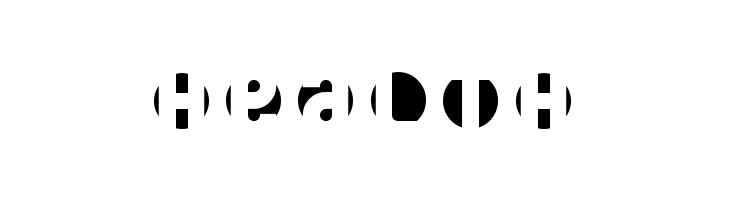
Together Again Font
- Font: Together Again
A geometric and abstract font with bold, circular shapes and strategic negative space.
A geometric, abstract font with bold, circular outlines and symmetrical design.